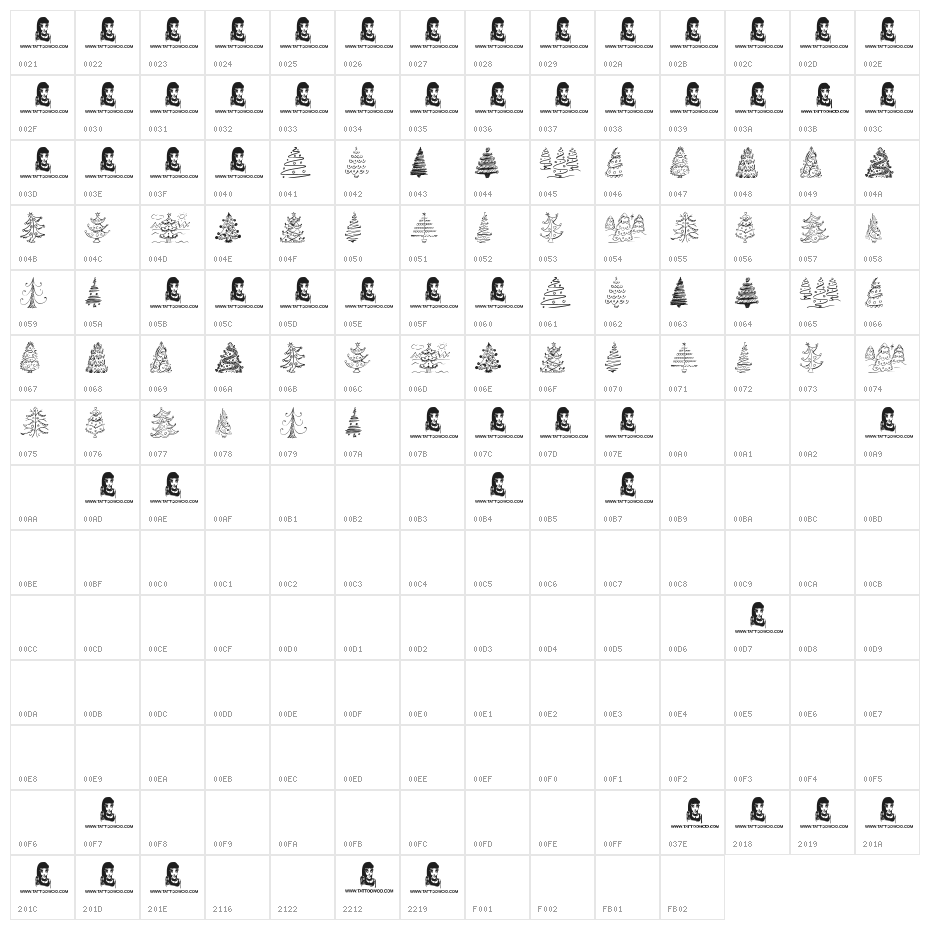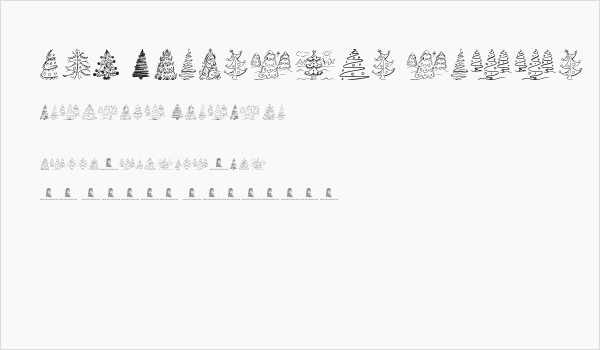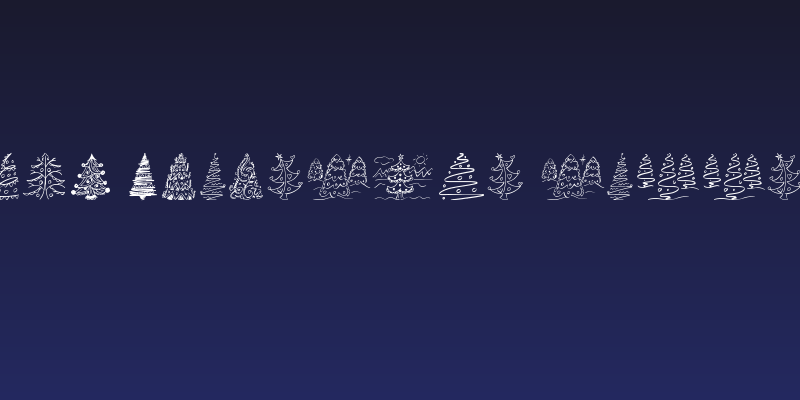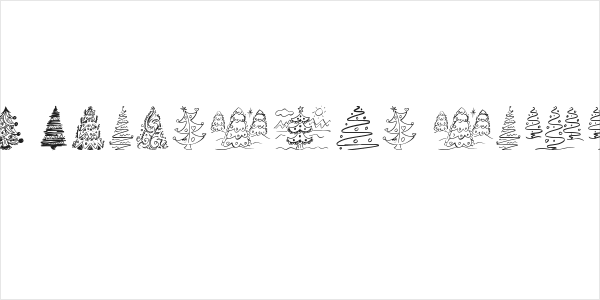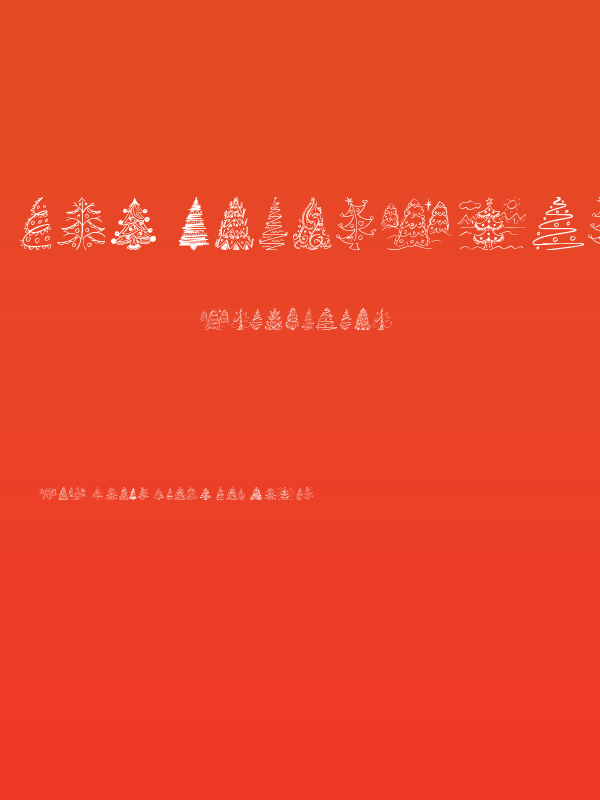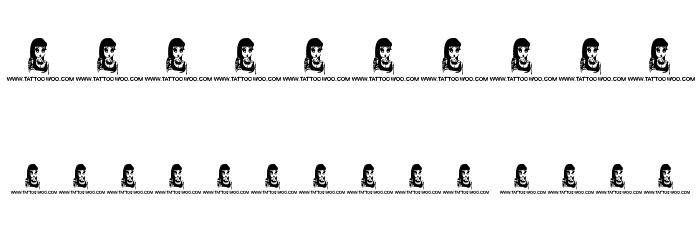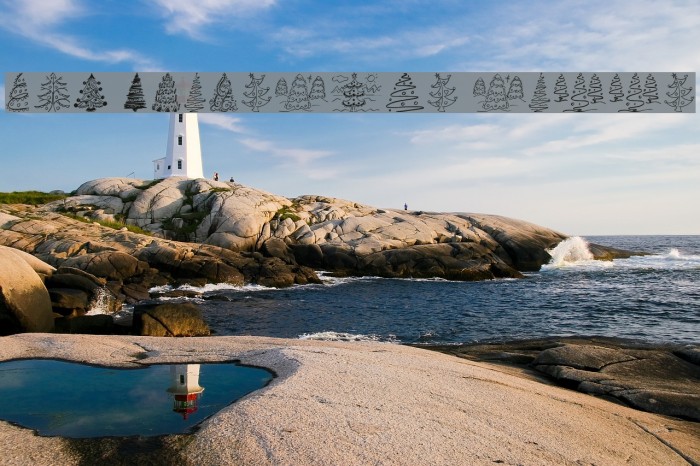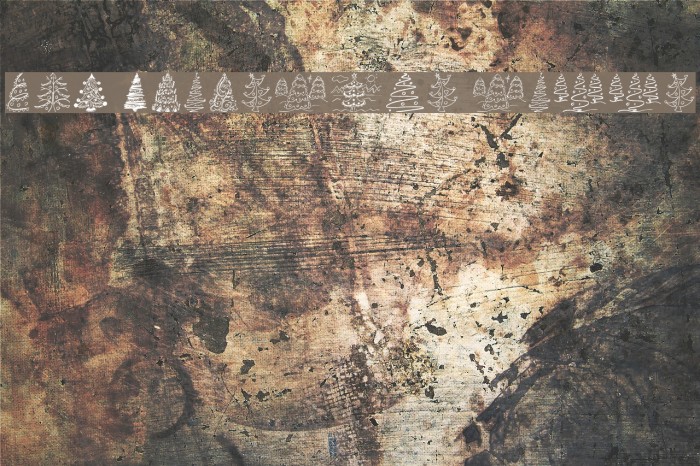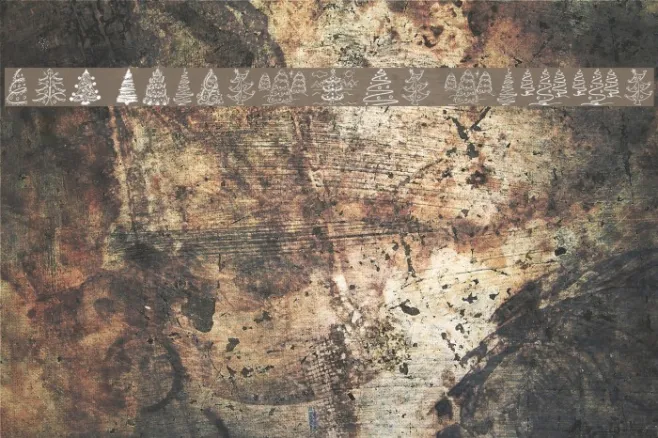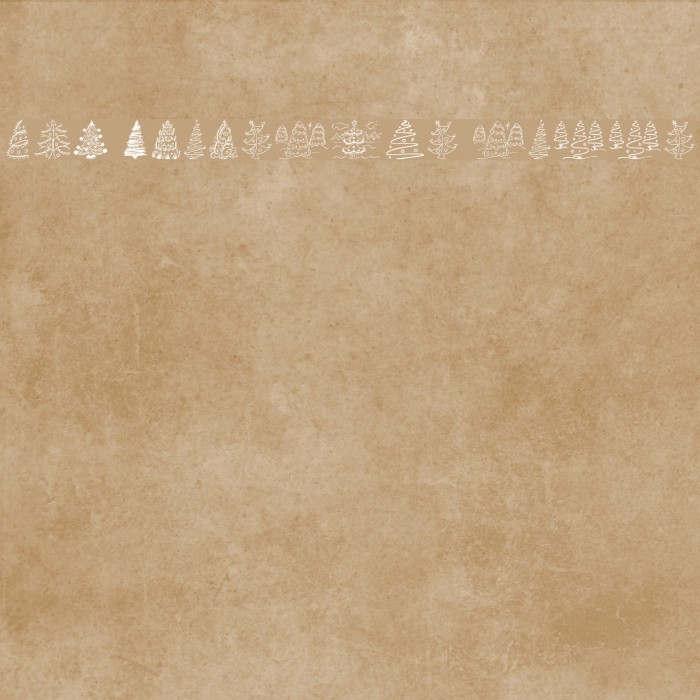
Fun Christmas Trees Font
Fun Christmas Trees Description
A decorative and playful collection of hand-drawn Christmas tree illustrations, each with unique details and whimsical line work. The set features a variety of tree shapes, ornaments, and festive accents, with some additional character icons included. The style is informal and artistic, with a sketch-like appearance.
| Overall Style | Decorative, Whimsical, Festive |
| Use Case | Holiday-themed graphics, decorative headings, craft and DIY projects. |
| Proposed Projects | Holiday cards, festive invitations, seasonal posters, craft projects, children's materials, digital stickers. |